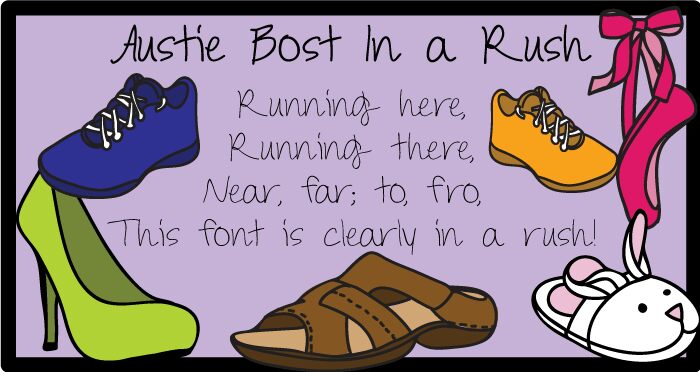
Austie Bost In a Rush by Austin Owens is a free handwritten font with the speed and looseness of an oversized marker scrawl. Its thin strokes swing through tall, narrow letters, broad loops, and abrupt changes in direction. The baseline wanders noticeably.
Young, informal audiences are the clearest match, especially in music posters and streetwear branding where a quick personal note feels credible and immediate. Its restless line also suits event invitations and scrapbook-style publishing that favor firsthand, unpolished lettering. For merchandise, the writing can become an autograph-like graphic rather than a neutral label running across a shirt or tote.